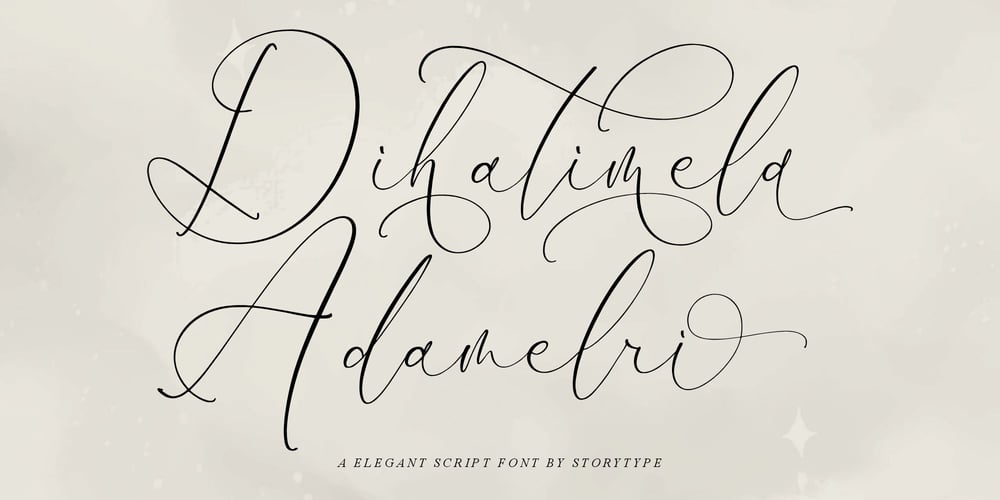
Dihatimela Adamelri Font Family was designed by Heru Utama Putra and published by Letterena Studios. Dihatimela Adamelri contains 2 styles and family package options. Dihatimela Adamelri is a dazzling script font. This font is neatly crafted and highly detailed. Whatever the topic, this font will be a wonderful asset to your font library, as it has the potential to enhance any creation.